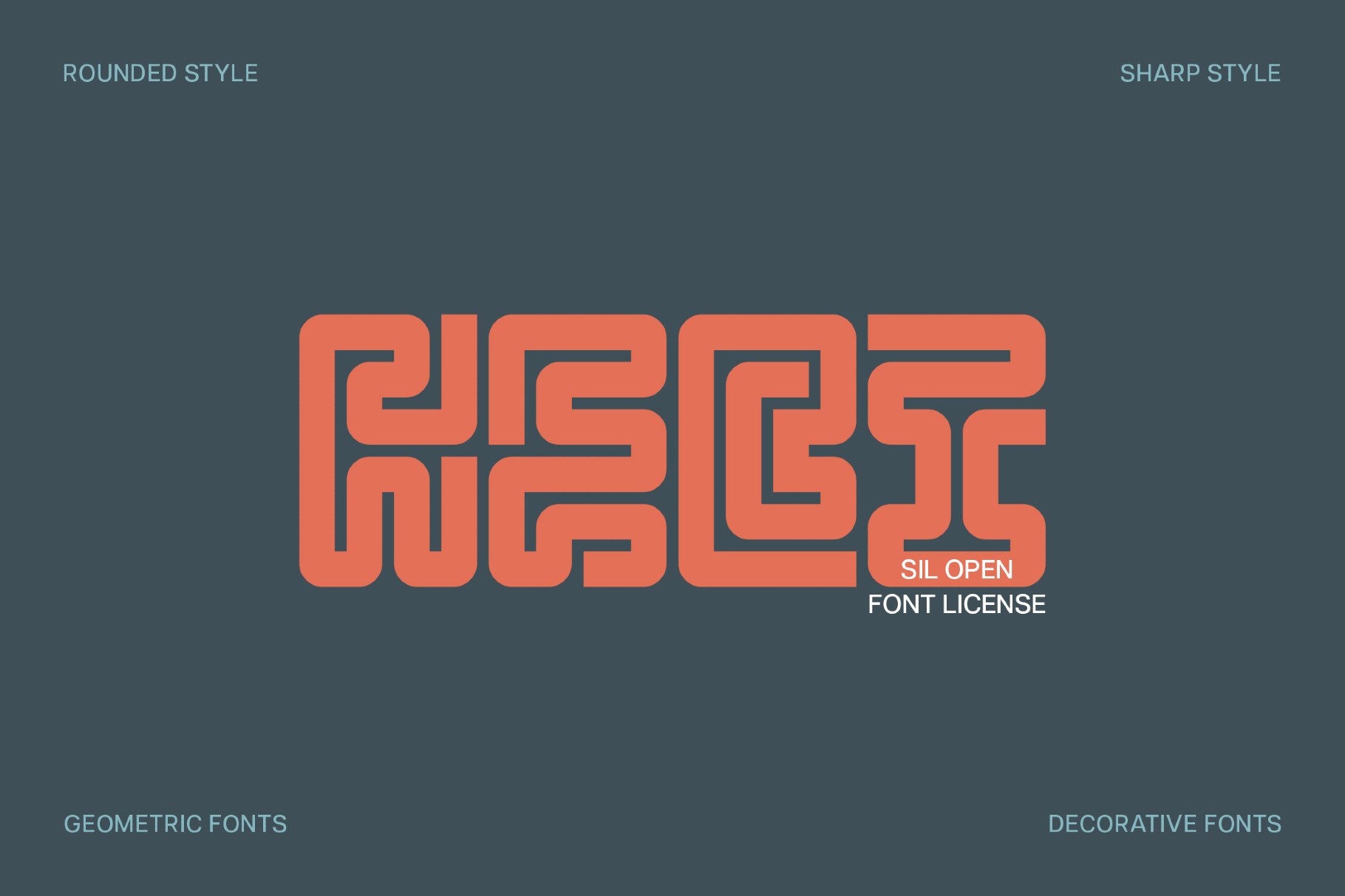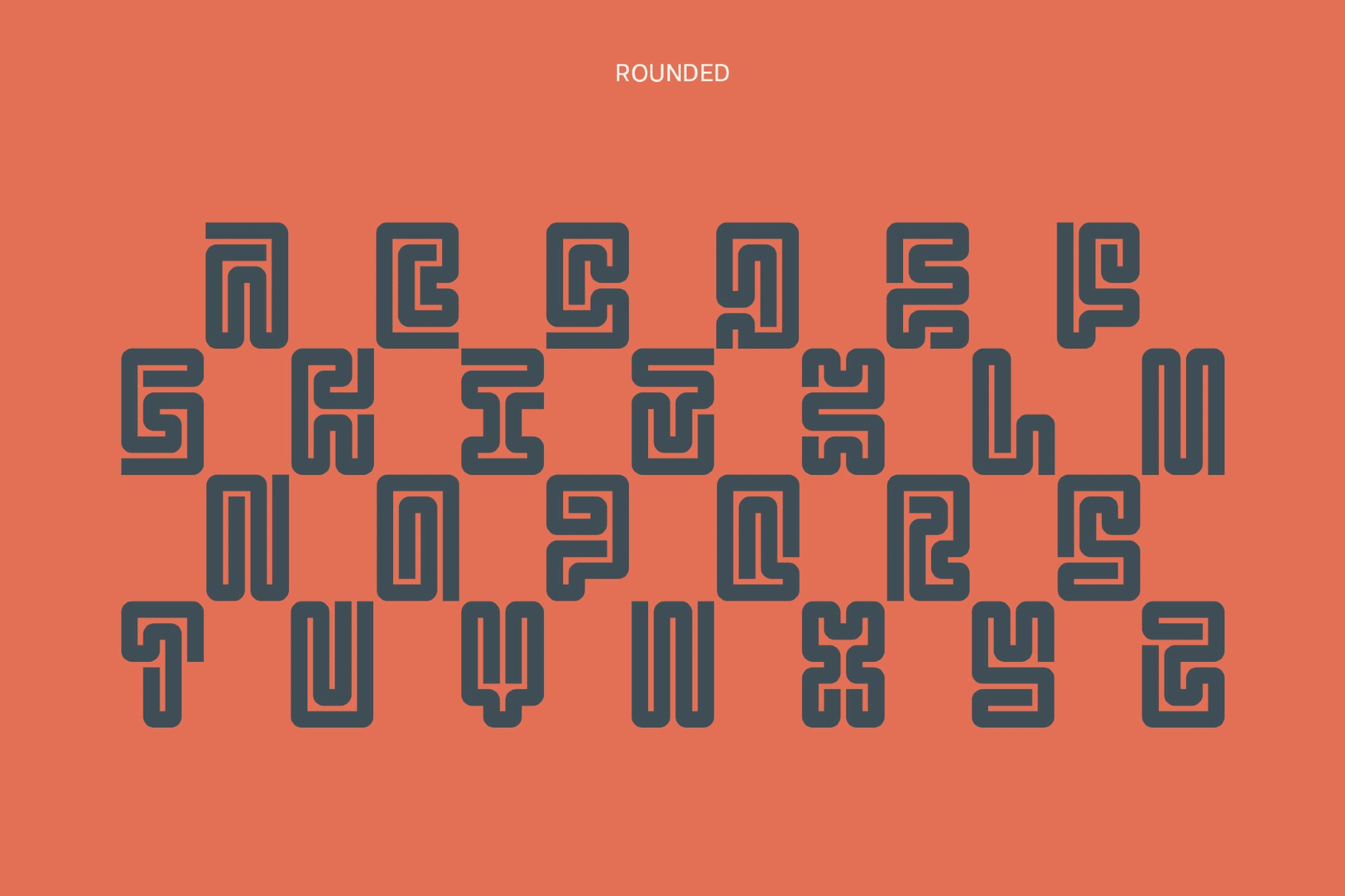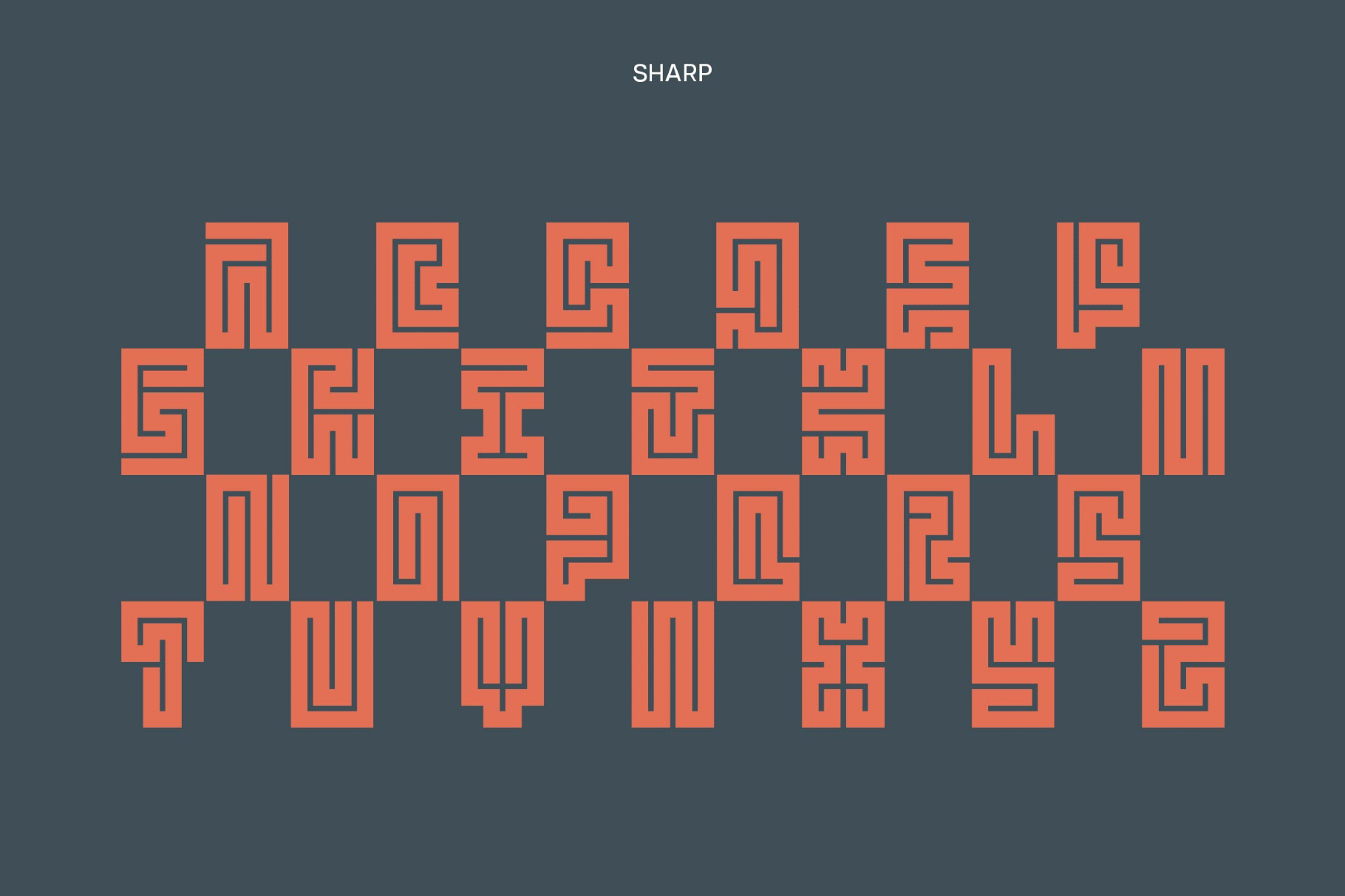
Hebi Font
Hebi Font coils thick geometric strokes into a decorative display alphabet that feels like a cross between arcade-era maze graphics and modular sci-fi logos. Two complementary styles are perfect for gaming or tech branding, poster headlines, logo wordmarks, album covers, packaging, apparel prints, event graphics, bold social media titles, and festival flyers.
• Two styles: Rounded and Sharp.
• Only uppercase letters A–Z.
• Numbers.